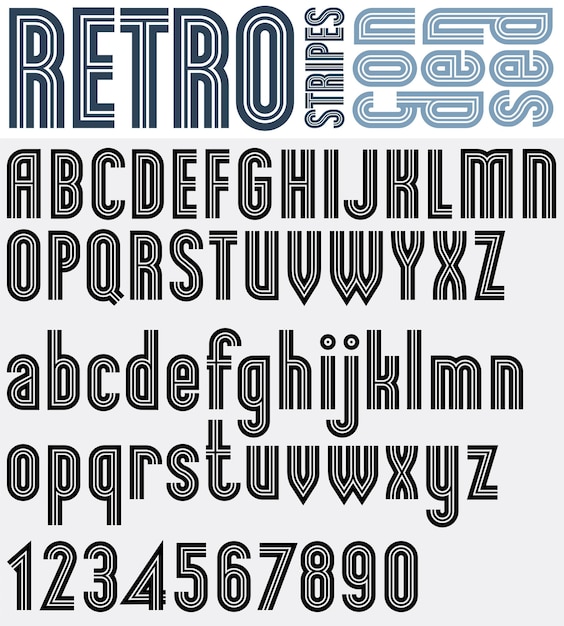
Set of disco vector upper case alphabet letters isolated. Trendy condensed font, script from a to z can be used in poster creation. Created using geometric triple stripes.